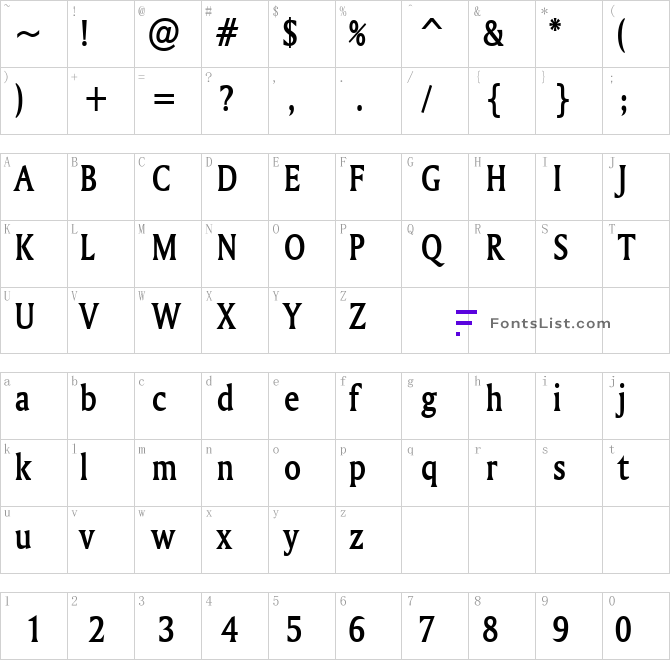
- Font Name:Ameretto Condensed
Ameretto-Condensed-Bold.ttf is a very beautiful artistic font, Ameretto-Condensed-Bold.ttf is widely used in the design and printing of various books and pictures,Ameretto-Condensed-Bold.ttf has a strong visual impact,Ameretto-Condensed-Bold.ttf is a commonly used font in newspapers, magazines and books, and is used in posters, e-commerce Poster design, store design, logo design, font design and other fields.Ameretto-Condensed-Bold.